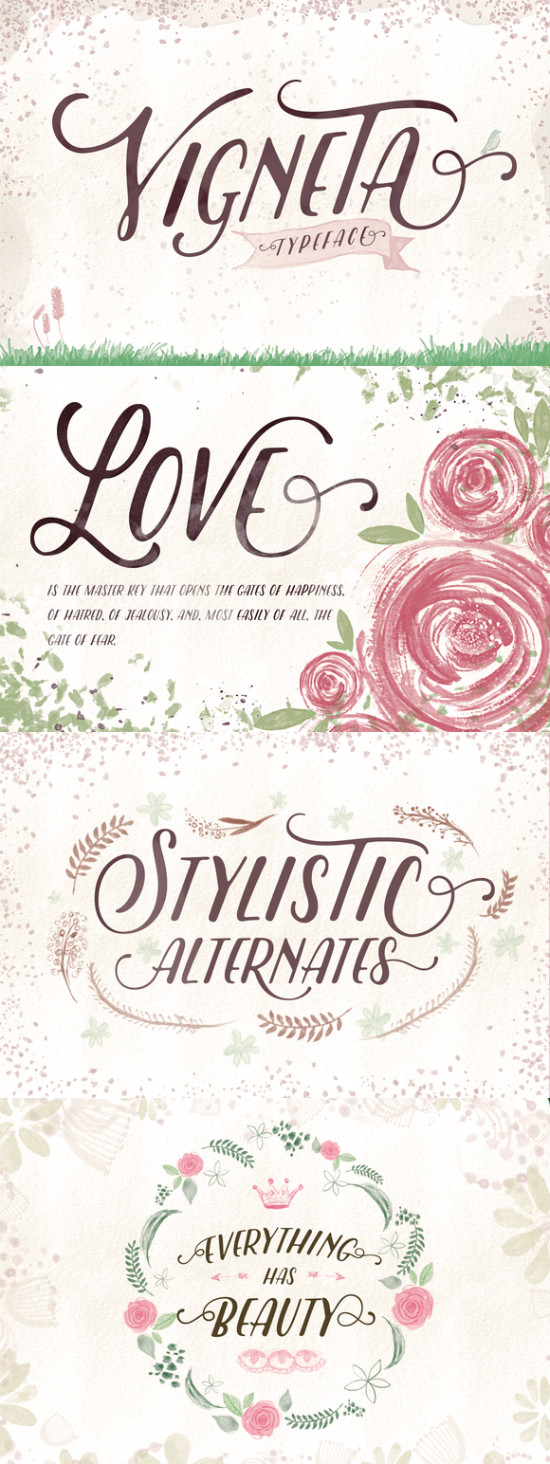
Vigneta Typeface
Introducing new handmade typeface it’s call Vigneta. Allcaps font with handwritten style very suitable when combined with watercolor and it can makes your work more stylish.
OpenType features with Stylistic Alternates, Contextual Alternate in some characters that allows you to mix and match pairs of letters to fit your design. To access the alternat glyphs, you need a program that supports OpenType features such as Adobe Illustrator CS and Adobe Indesign.